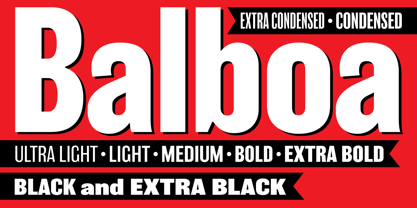
Balboa™
by Parkinson
About Balboa Font Family
Balboa is a display design combining elements of early sans serif and grotesque types with contemporary types. It evolved from ATF Headline Gothic, Banner (a headline typeface I drew for the San Francisco Chronicle), and Newsweek No.9, a Stephenson Blake-like grotesque I designed for Roger Black's 1980 redesign of Newsweek Magazine. There are nine styles, including the three new styles that have been added in 2014: Medium, Light and Ultra Light.
About Parkinson
Jim Parkinson is the founder and sole employee at Parkinson Type Design. He was born in Richmond, California, in 1941, and he’s been lettering ever since. Jim was one of the designers who worked on ITC Bodoni, along with Sumner Stone, Holly Goldsmith and Janet Prescott Fishman. He drew Parkinson Electra for Monotype and has done a number of custom fonts for magazines and newspapers. In addition to his custom font work, Jim has designed dozens of retail fonts. Some of these designs are exclusives for Adobe, Monotype, FontShop, and The Font Bureau. The rest are released through Parkinson Type Design. Jim has also specialized in typographic logos for magazines and newspapers, including Rolling Stone, Newsweek, Esquire, InStyle, Men's Journal, The Wall Street Journal, The Los Angeles Times, The Detroit Free Press, the Toronto Star and The National Post. In a rare departure from publication work, Jim designed the logo for the Ringling Bros. and Barnum & Bailey Circus. In his spare time, he paints…mostly pictures that feature letterforms.